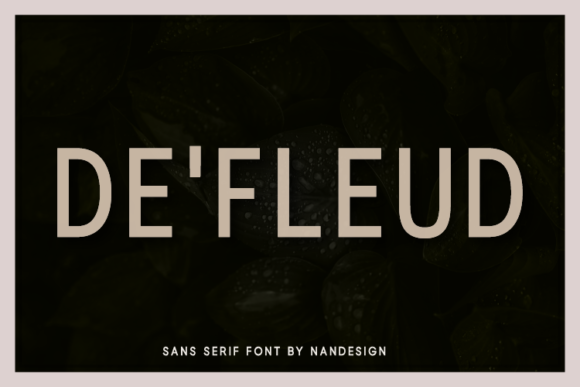
Get ready to embark on a typographic adventure with the enchanting De'Fleud Font! This captivating sans serif masterpiece, brought to you by the talented Nan Design, is specifically tailored to ignite the imagination of young minds.
Immerse yourself in the boundless creativity of De'Fleud, a font that dances across the page with effortless grace and charm. Its clean lines and minimalist aesthetic create a visual symphony that will captivate your audience, leaving an unforgettable mark on their hearts.
Unleash the power of De'Fleud to transform your words into whimsical masterpieces. Whether you're crafting enchanting stories, designing vibrant posters, or creating playful presentations, this font will add a touch of magic to every project.
Picture the joy on your child's face as they see their words come to life in the vibrant embrace of De'Fleud. Its playful curves and cheerful demeanor will inspire their creativity and make learning an adventure.
But De'Fleud is not just for kids. Its versatile charm extends to a wide range of projects, from professional presentations to captivating marketing materials. Its understated elegance adds a touch of sophistication to any design, making it a perfect choice for businesses looking to make a lasting impression.